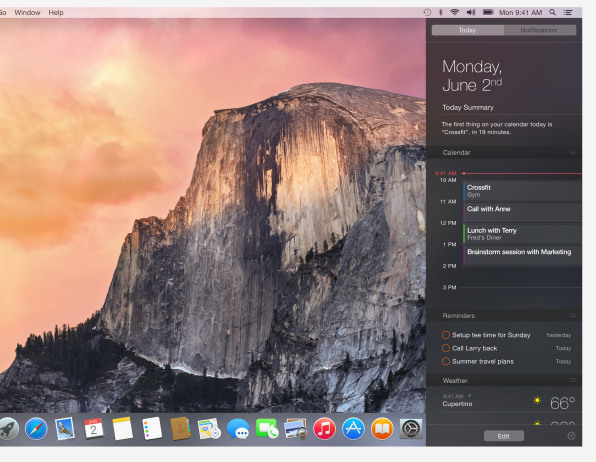
For the first time ever, Apple is ditching Lucida Grande as the OS X system font in favor of Helvetica Neue, which also happens to be the iOS system font. For an operating system that's used by 80 million people, that's no small thing. Will it make reading on desktop computers easier? Harder?
We asked Tobias Frere-Jones, the famed typeface designer who has worked with some of the world's best publications and design shops, to offer his insights on what this change means for consumers. In his view, Apple might have made a mistake. Here, he highlights some of the challenges of deploying Helvetica Neue onto an OS abundant with small type and devices where non-Retina displays are still the norm:
Apple's desktop and mobile operating systems have been gradually converging for some time. So it was inevitable that one typographic palette would displace the other. With OS X 10.10, Mac desktops will sport Helvetica everywhere. But I had really hoped it would be the other way around, with the iPhone taking a lesson from the desktop, and adopt Lucida Grande. Check the lock screen on your iPhone. You’ll see Helvetica there, a half-inch tall or larger, and it looks good. Problem is, there aren't many other places where it looks as good.
Despite its grand reputation, Helvetica can’t do everything. It works well in big sizes, but it can be really weak in small sizes. Shapes like ‘C’ and ‘S’ curl back into themselves, leaving tight "apertures"—the channels of white between a letter’s interior and exterior. So each shape halts the eye again and again, rather than ushering it along the line. The lowercase ‘e,' the most common letter in English and many other languages, takes an especially unobliging form. These and other letters can be a pixel away from being some other letter, and we’re left to deal with flickers of doubt as we read.
Lucida Grande presents open apertures, inviting the eye to move along sideways through the text. It has worked really well—for years, and for good reason. For any text, but particularly in interfaces, our eyes need typefaces that cooperate rather than resist. A super-sharp Retina Display might help, but the real issue is the human eye, and I haven’t heard of any upgrades on the way.
Seeing as Helvetica Neue was not universally well-received on the iPhone, it will be curious to see how Mac users react this fall when OS X Yosemite goes live. Until then, maybe try and get your eyes in peak working order.